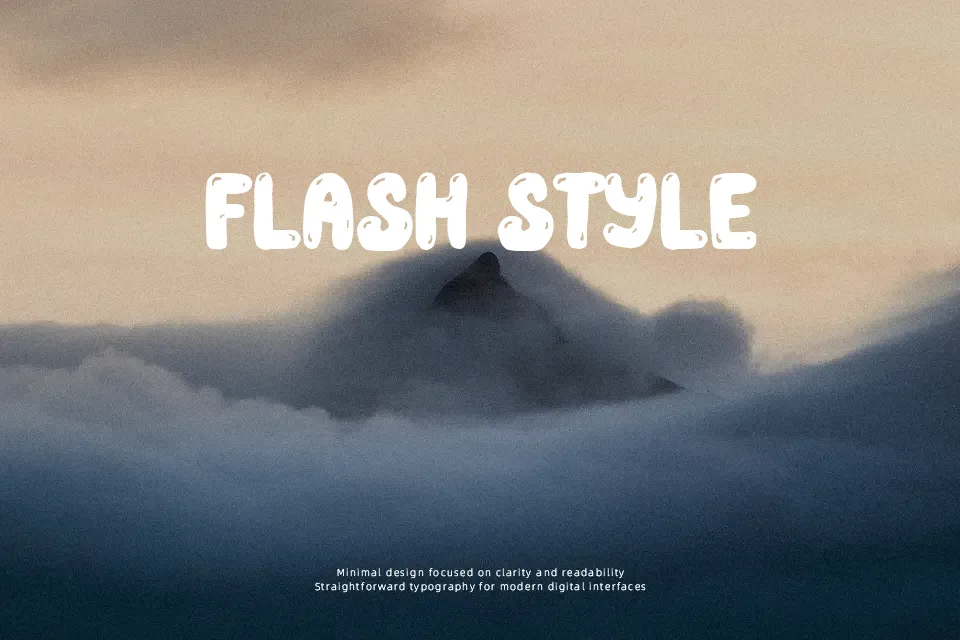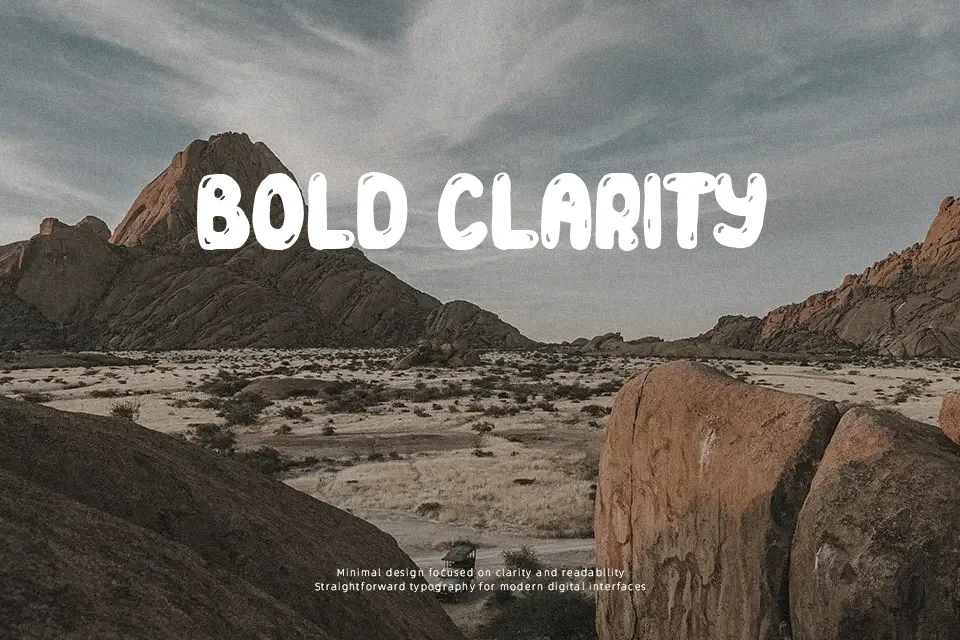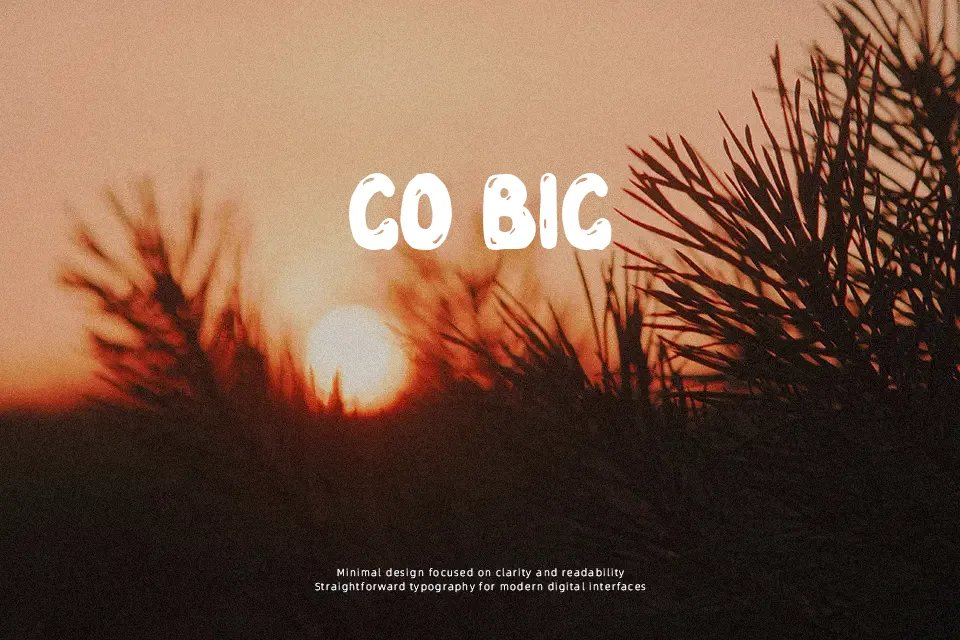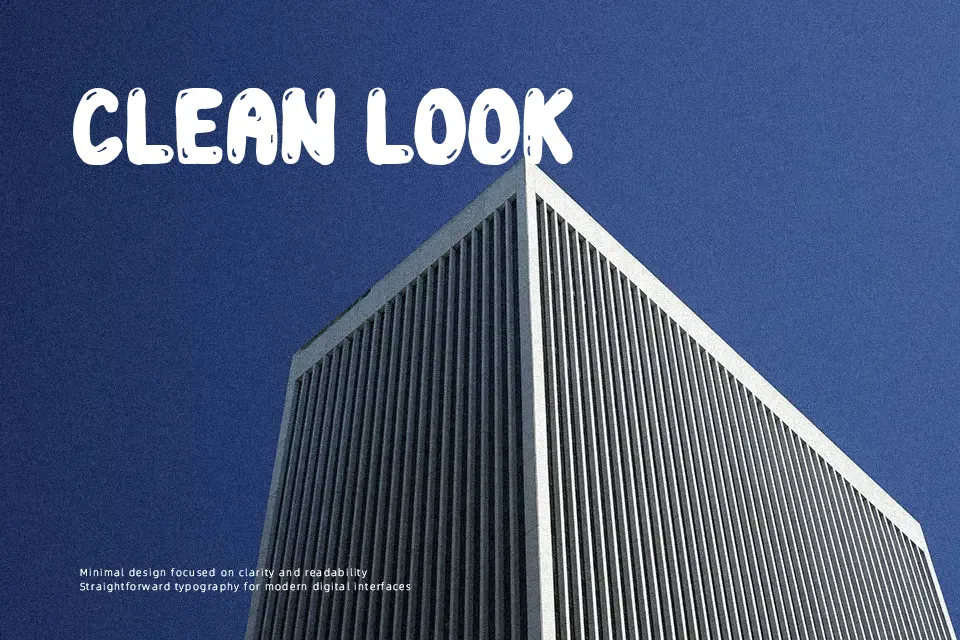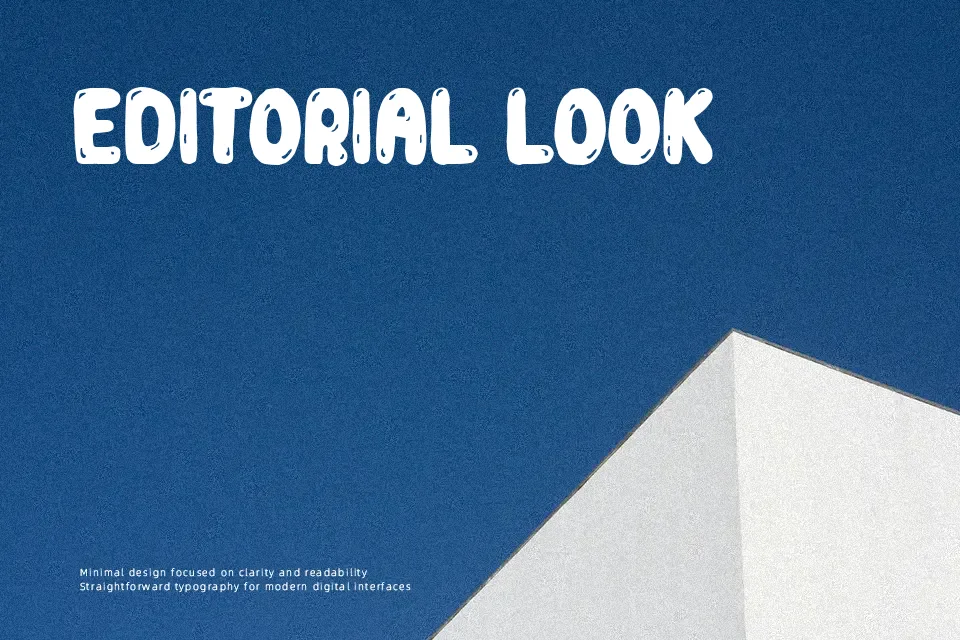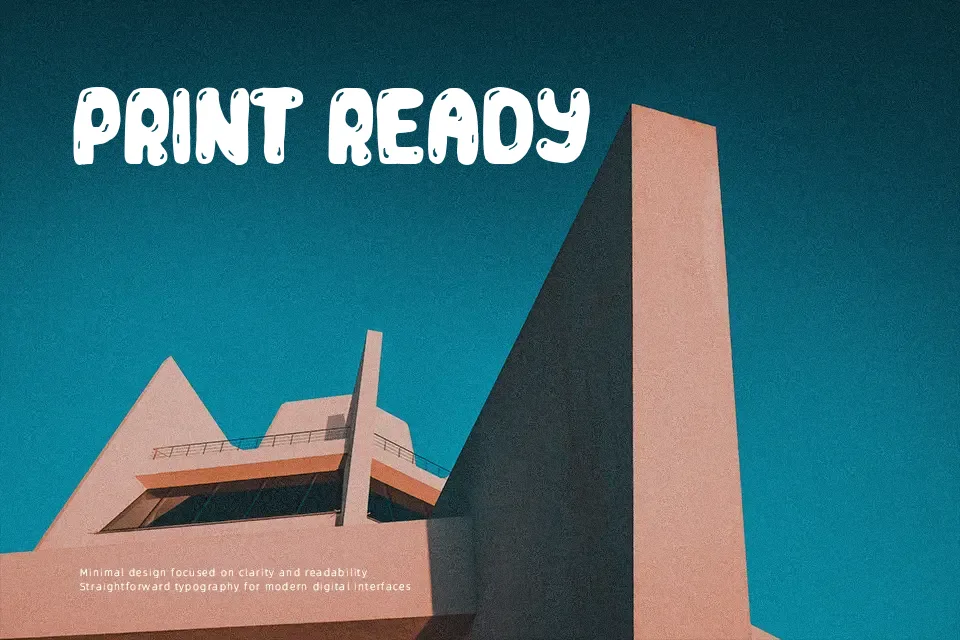
Ballooning Font
Ballooning leans into rounded, inflated letterforms that look like they were shaped from air-filled balloons, with generous curves, low contrast strokes, and relaxed spacing that keeps words easy to read at larger sizes. This gives it a casual, decorative feel that works nicely for children’s event branding, festive banners, or playful product packaging where you want text to feel fun rather than formal. It shines in short titles and bold wordmarks, but quickly feels heavy and repetitive in dense body copy or serious editorial layouts. Use it when you want to emphasize joy and celebration, not when clarity and neutrality are the main priority.
kids’ birthday party posters
playful event invitations
fun product or snack packaging
long paragraphs or body text
serious editorial or news layouts
minimalist, neutral branding
Perfect for headline, kids, and logo, with a creative and decorative style.